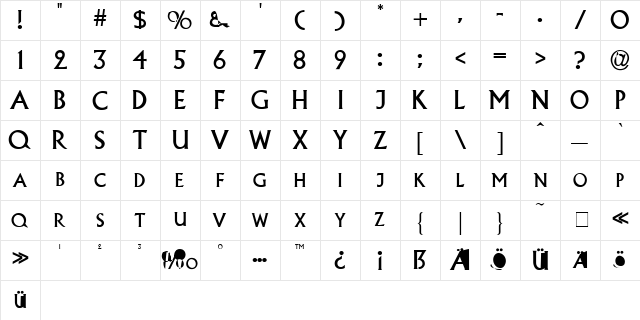
Alberta Normal
Alberta Family
Complete Alberta Normal glyph index. Displaying only characters natively supported by Alberta Normal font.
Design Context for Alberta
Alberta is a composed and adaptable typeface that performs quietly and consistently across a wide range of design contexts.